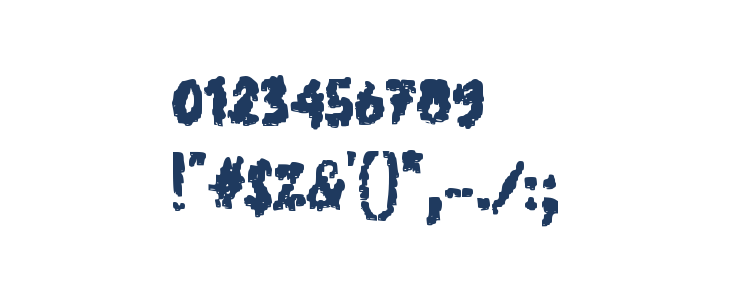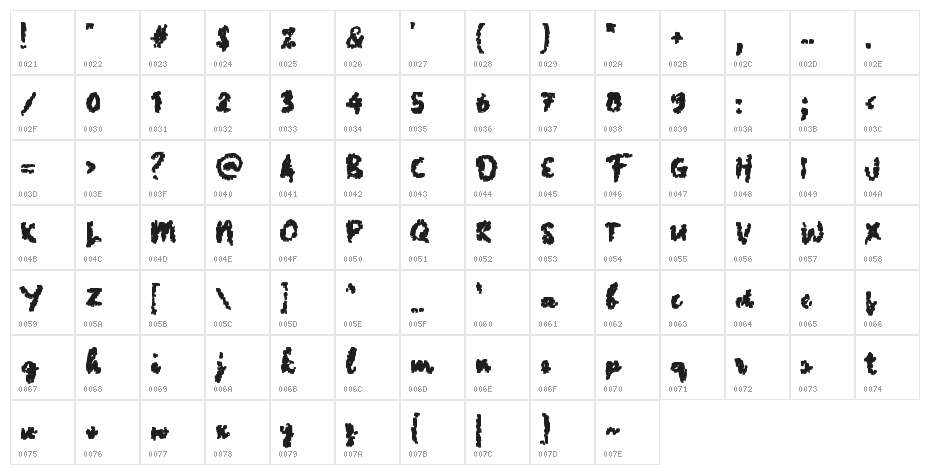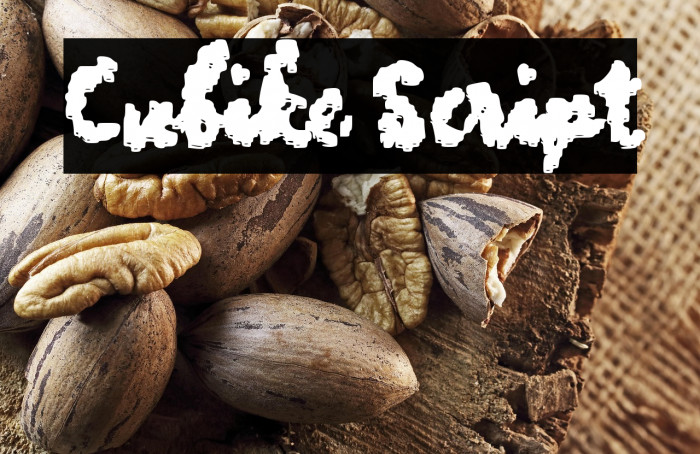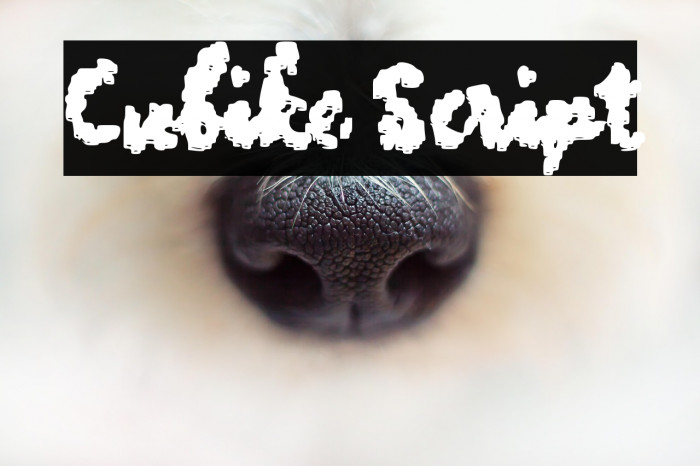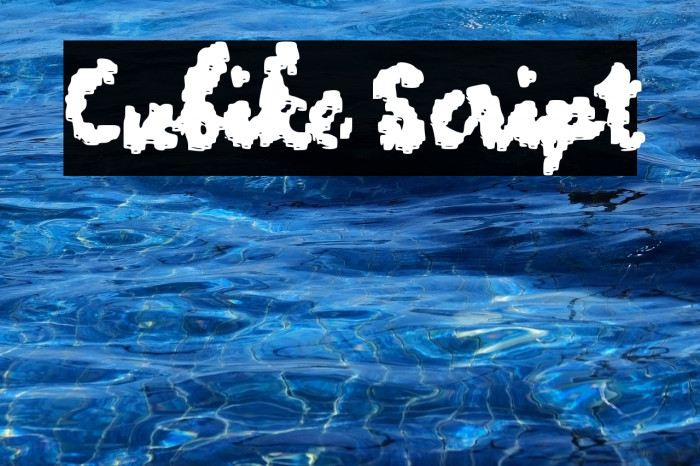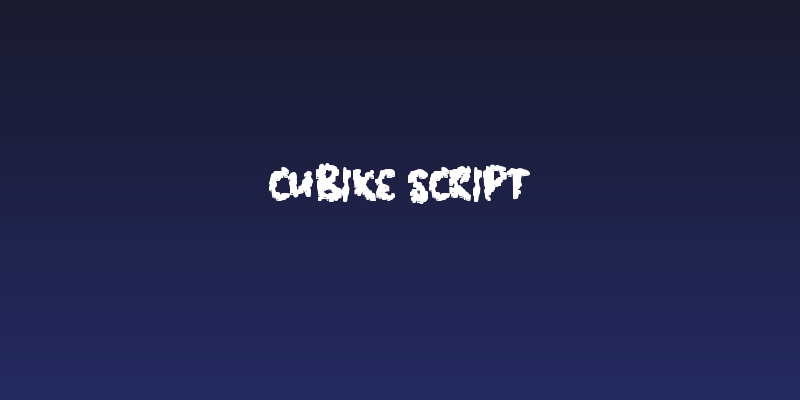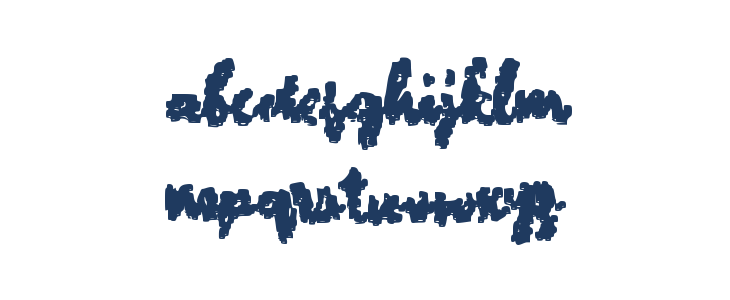
Cubike Script Font
Cubike Script Description
This font features a bold and expressive style with a textured, brush-like appearance. The characters are irregular and dynamic, giving a sense of movement and energy. The uppercase and lowercase letters maintain a consistent style, with the uppercase being slightly more pronounced. Numbers and special characters are integrated seamlessly, maintaining the overall artistic feel. The font's unique design makes it stand out, ideal for creative projects that require a strong visual impact.
| Use Case | Logos, Headlines, Posters |
| Proposed Projects | Perfect for artistic posters, branding, album covers, and creative invitations. |